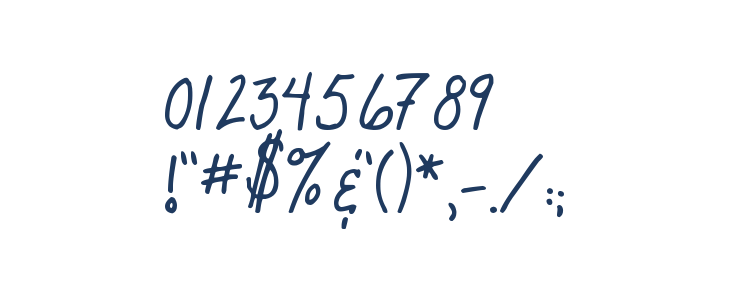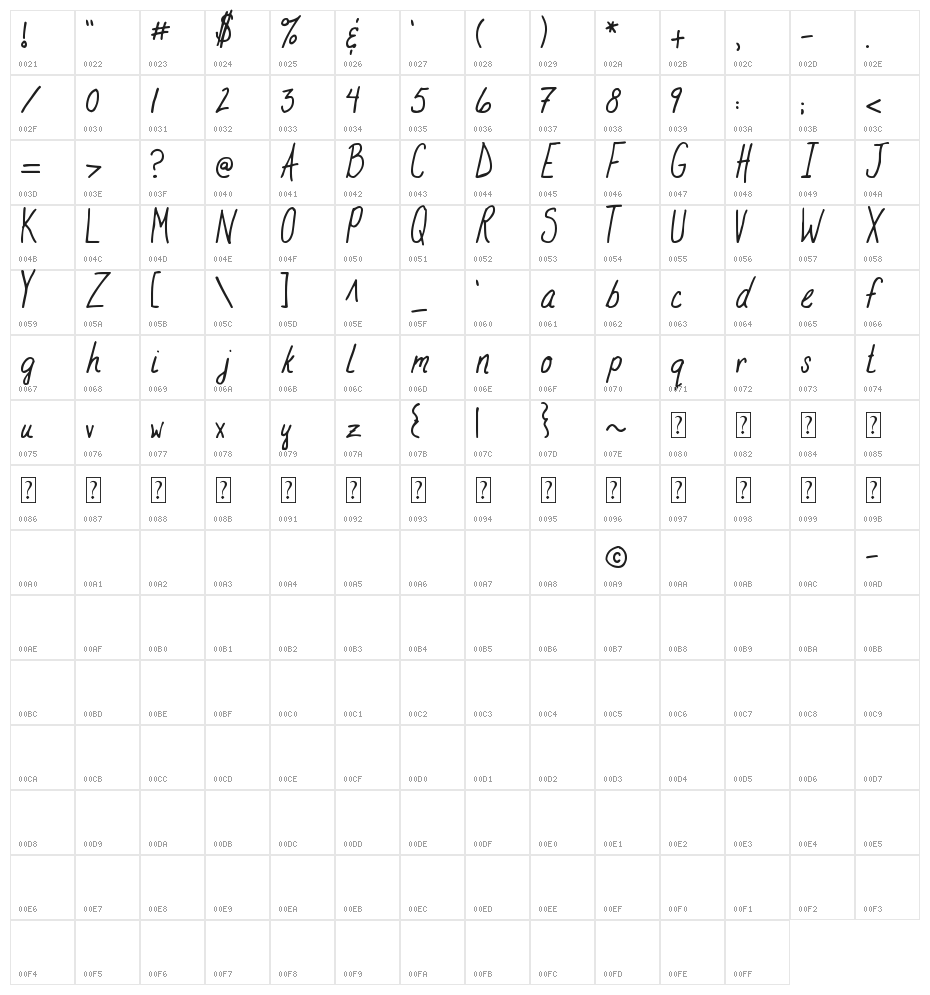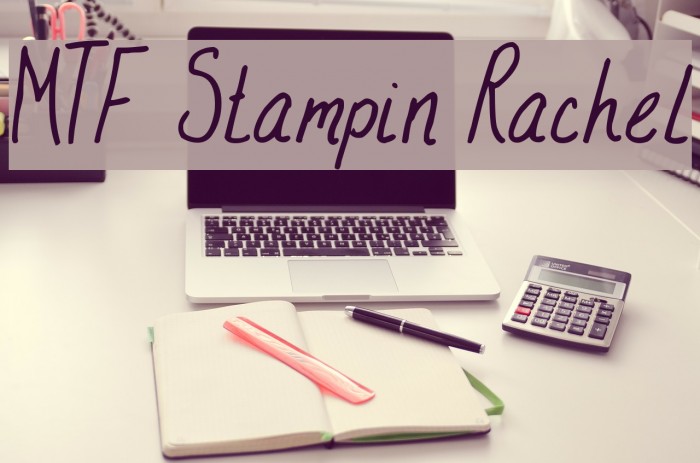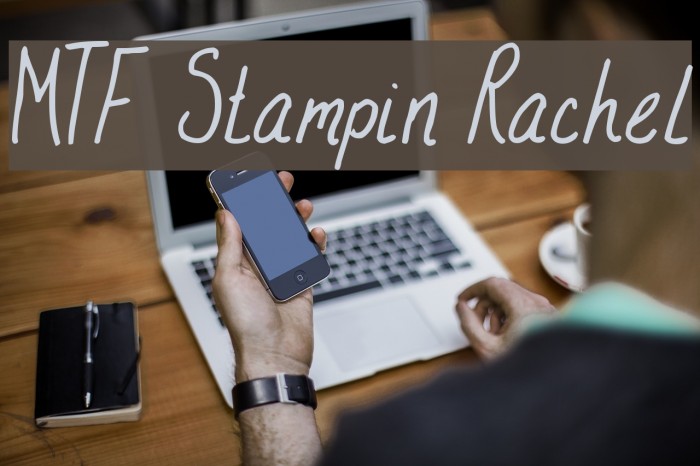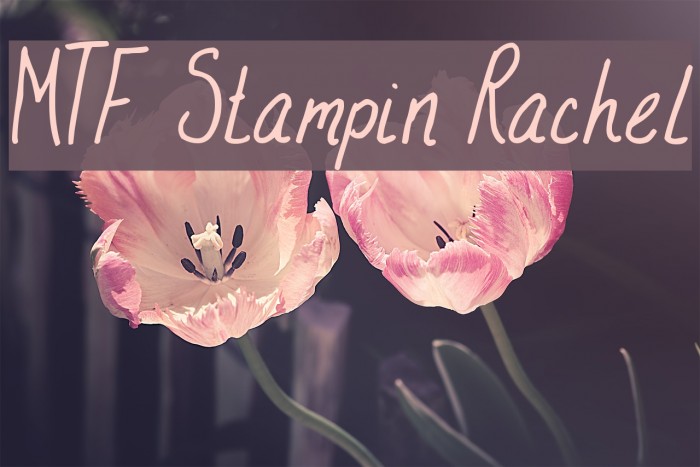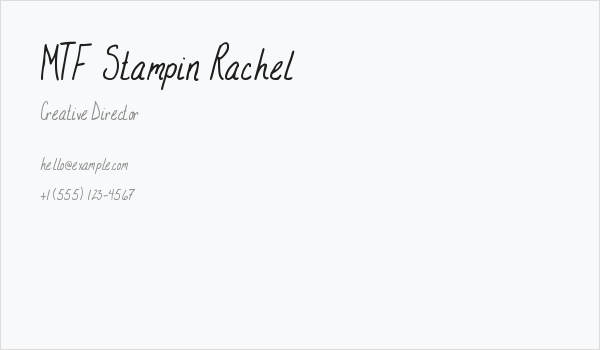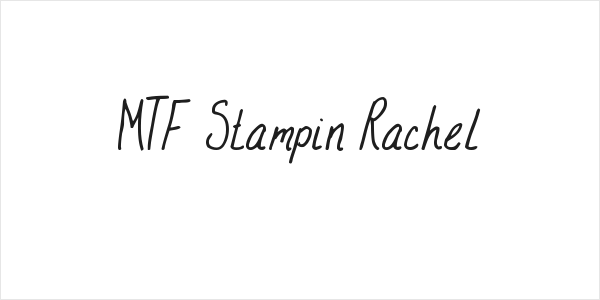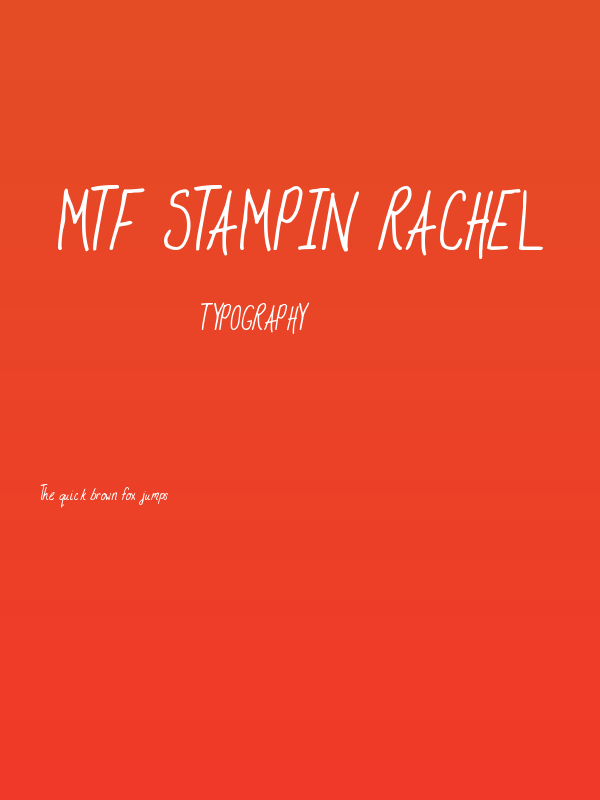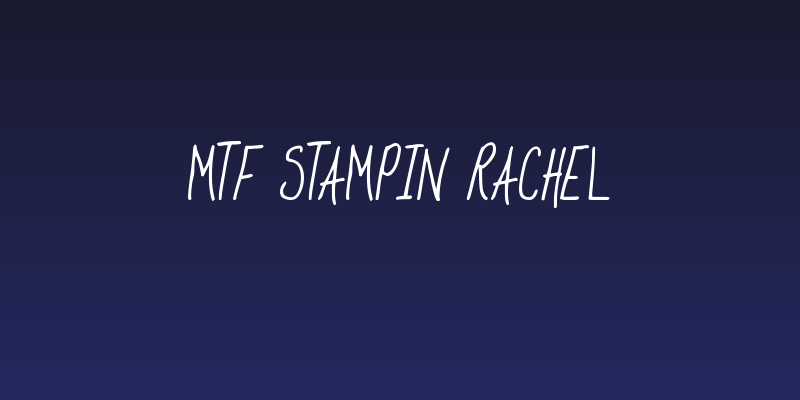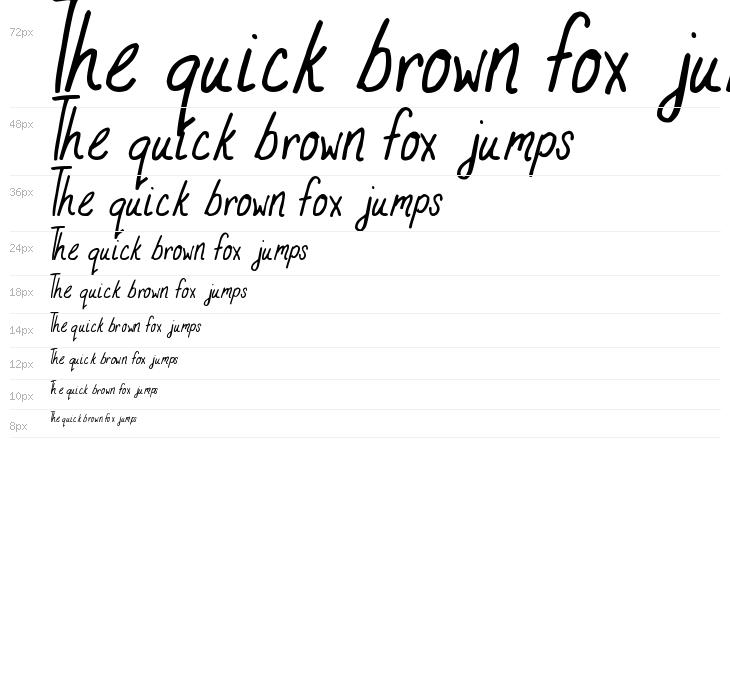
MTF Stampin Rachel Font
MTF Stampin Rachel Description
This font features a playful and casual handwritten style, characterized by its irregular and organic letterforms. The uppercase letters are tall and slightly narrow, with a whimsical touch that adds personality. The lowercase letters maintain a consistent flow, enhancing the font's informal and friendly appearance. Numbers are bold and easy to read, while special characters are creatively integrated, maintaining the overall playful aesthetic. The strokes are smooth and slightly varied in thickness, giving the font a dynamic and lively feel.
| Proposed Projects | Ideal for greeting cards, children's books, playful branding, and casual invitations. |